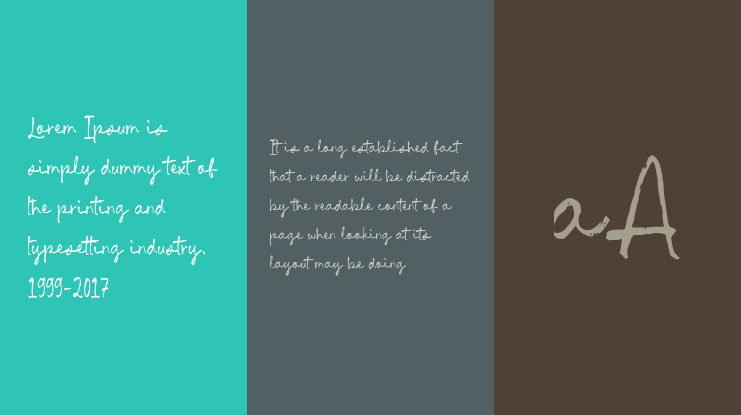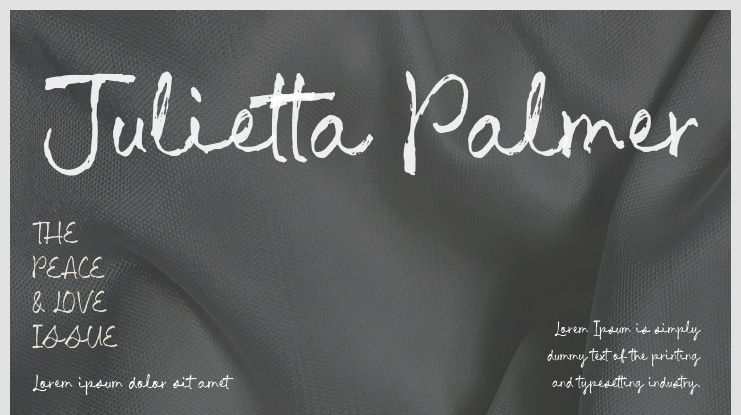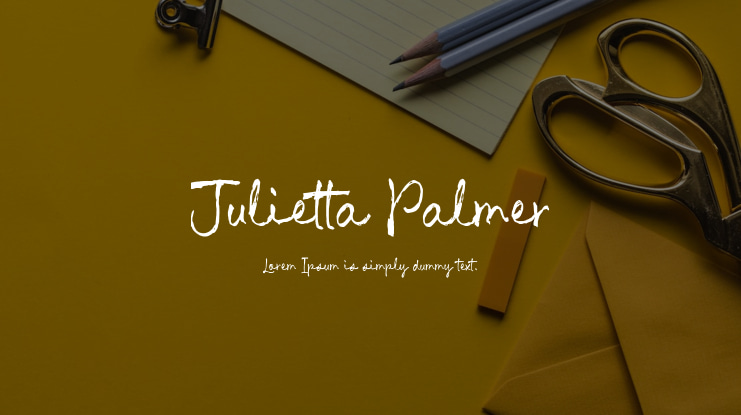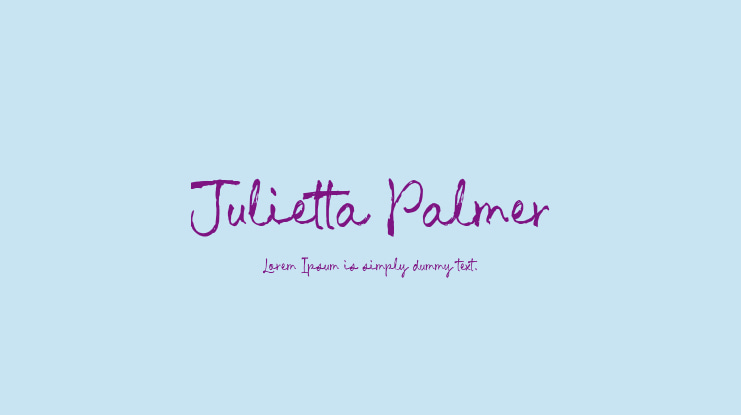
Julietta Palmer Font
Introducing Julietta Palmer by Timurtype Studio!
Julietta Palmer is an elegant hand-brushed script font that exudes charm and sophistication. With its fluid, sweeping strokes and playful character variations, it adds a touch of elegance to any design. Ideal for wedding invitations, branding, or creative projects, Julietta Palmer strikes a perfect balance between contemporary flair and classic beauty, making your text feel both warm and inviting. Whether used for headlines or body text, this font captures the essence of handwritten artistry.
The Julietta Palmer Font also supports multilingualism and features a full set of standard alphabet and punctuation.